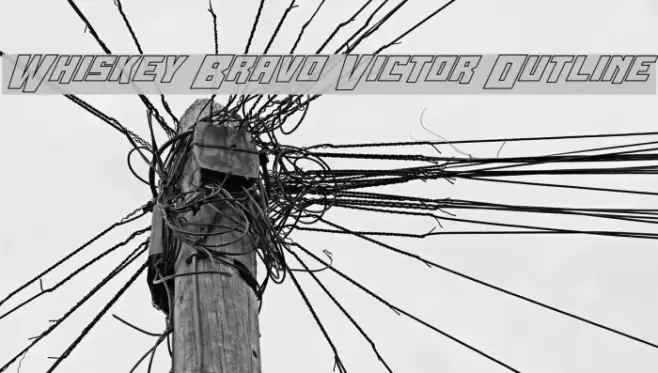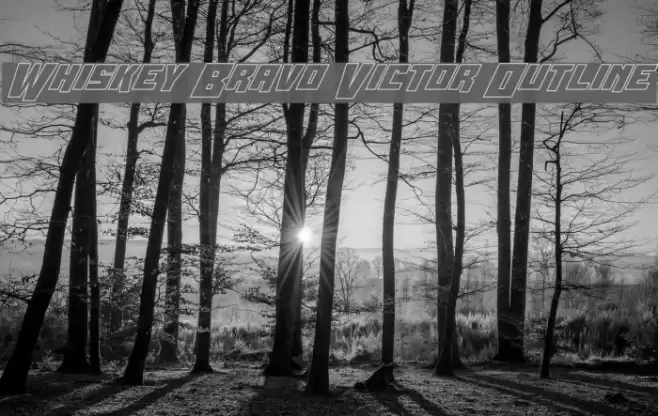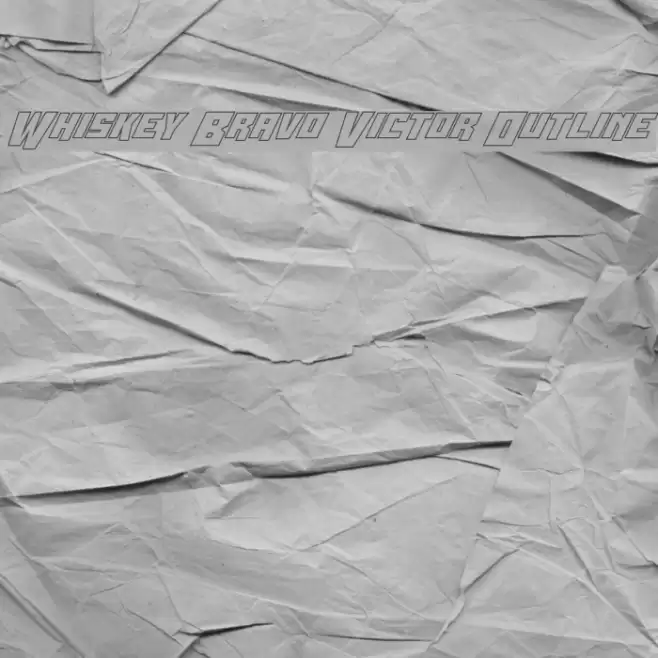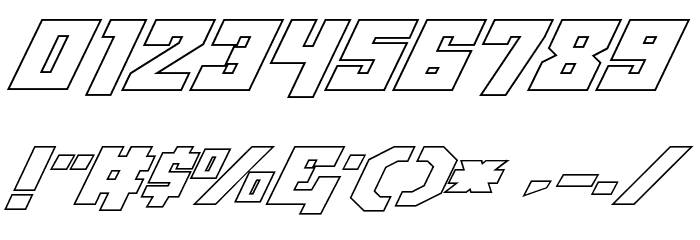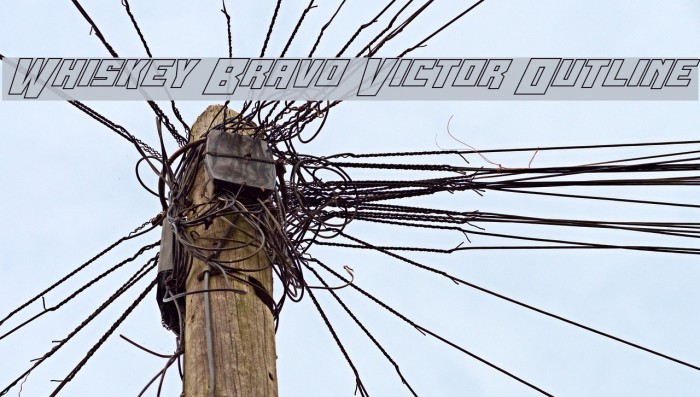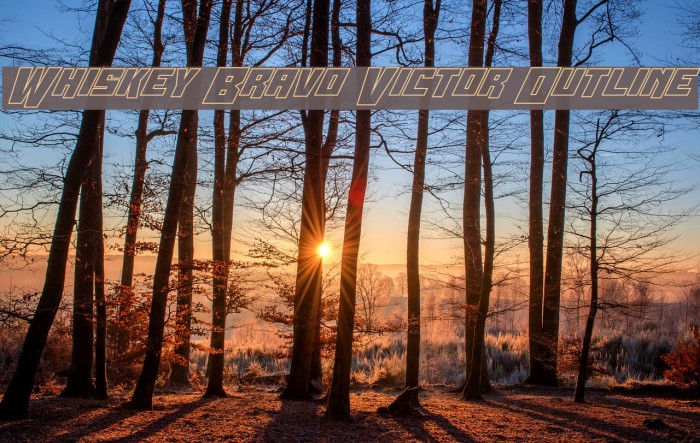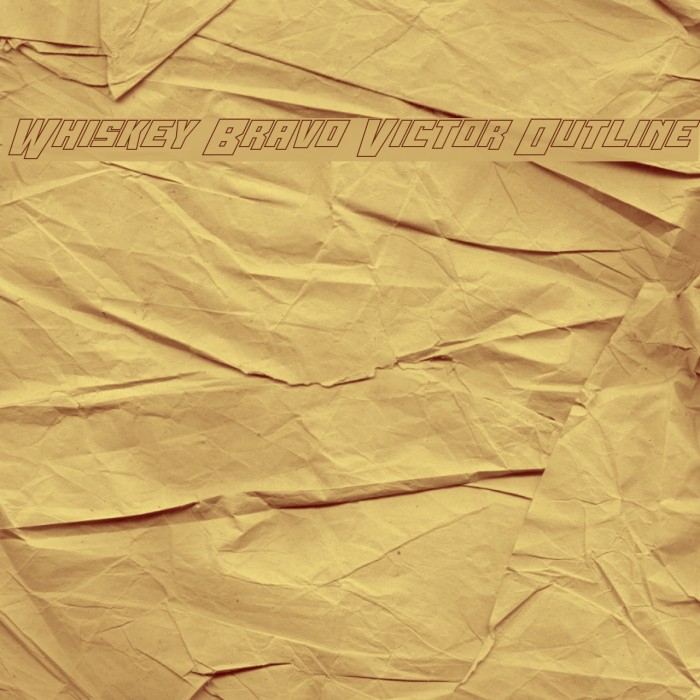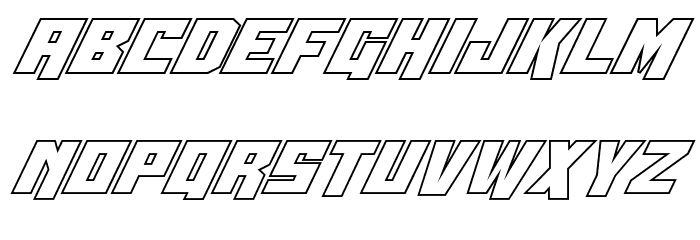
Whiskey Bravo Victor Outline Font
Whiskey Bravo Victor Outline Description
This font features a bold, geometric design with an outline style that gives it a striking, modern appearance. The characters are angular and slanted, creating a sense of movement and dynamism. Each letter and number is crafted with precision, maintaining a consistent width throughout. The outline effect adds depth and dimension, making it ideal for eye-catching designs. The font's unique style is both futuristic and retro, reminiscent of digital displays or sci-fi themes. Its clean lines and sharp edges ensure readability while maintaining a distinctive aesthetic.
A bold, geometric outline font with a dynamic, modern style from Uncategorized fonts.
- Proposed Projects: Ideal for futuristic branding, sci-fi themed posters, video game titles, and digital art projects.